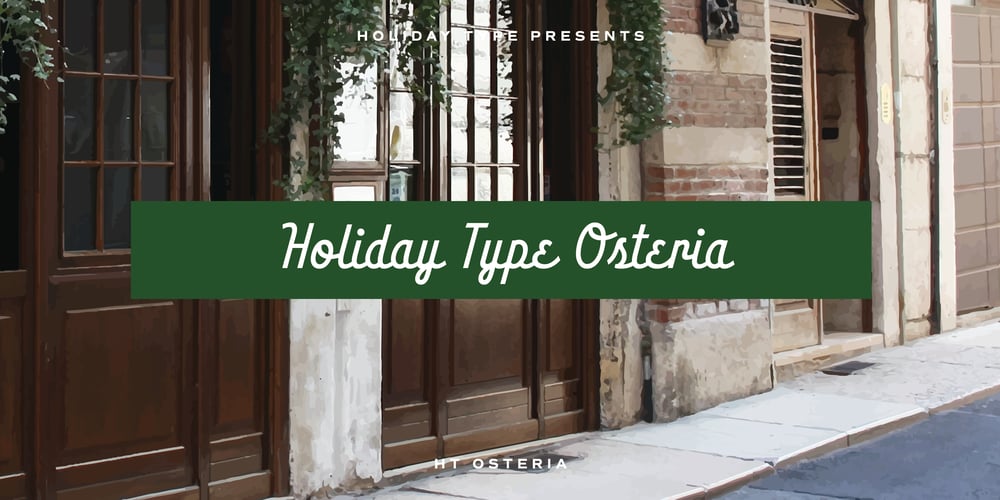
HT Osteria Font Family was designed by Ryoichi Tsunekawa and published by Dharma Type. HT Osteria contains 1 styles and family package options. HT Osteria is a monoline script, but you don’t feel it monotonous because of distinctive shapes of the characters. HT Osteria is suitable for signage, package, and posters or any other kind of display use. Holiday Type Project offers retro hand drawing scripts. Inspired by retro script on shopfront lettering, wall paint advertisements in Italy around 1950s. Check out the script fonts from Holiday Type!